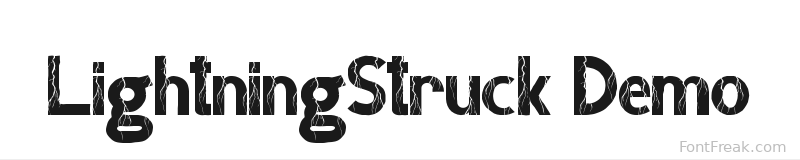
LightningStruck Demo
The LightningStruck Demo font by Noah Type is a striking display typeface that captures attention with its unique visual flair. This font falls into the decorative category, showcasing a bold and edgy aesthetic that makes it an excellent choice for projects requiring a touch of drama. The strokes exhibit a varied weight, with thicker portions contrasting beautifully against thinner elements, creating a dynamic and engaging visual experience. The spacing is well-balanced, which aids in legibility while still allowing the font's character to shine through.
LightningStruck Demo is versatile in its application, making it suitable for a variety of creative projects. It works exceptionally well for movie posters, where its dramatic flair can convey excitement and action. Additionally, this font is perfect for branding and logo design, particularly for businesses in the entertainment or adventure sectors, as it evokes a sense of energy and movement. Wedding invitations can also benefit from its unique style, adding a personalized touch to special occasions. Furthermore, it serves as an excellent choice for social media graphics, helping content creators capture their audience's attention instantly.
The target audience for the LightningStruck Demo font includes graphic designers, small business owners, and content creators who are looking to make a bold statement in their work. Whether for print or digital media, this font offers a distinct character that can elevate any design.
What sets the LightningStruck Demo font apart is its ability to blend artistic expression with functionality. The combination of its dramatic style and versatile applications makes it an essential addition to any designer's toolkit. For those interested in experimenting with this eye-catching typeface, the LightningStruck Demo font free download is an opportunity not to be missed.